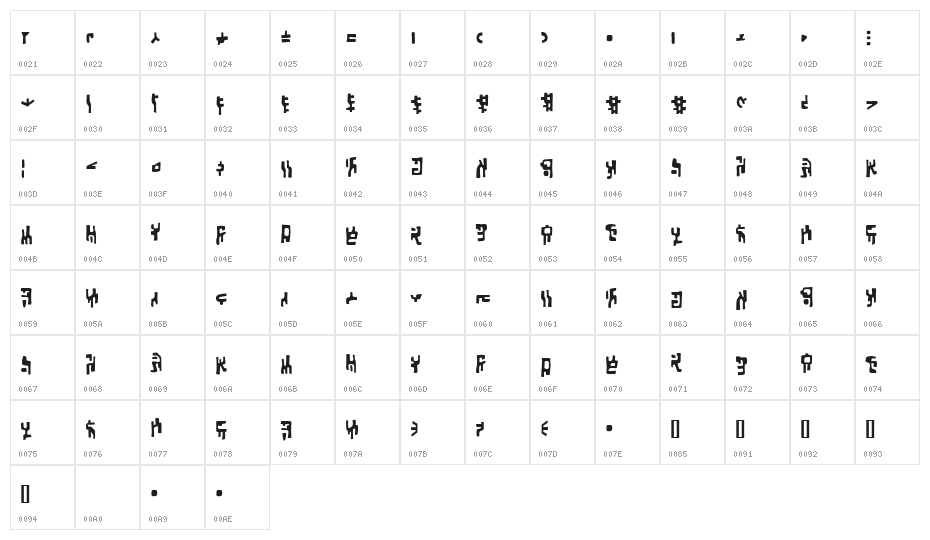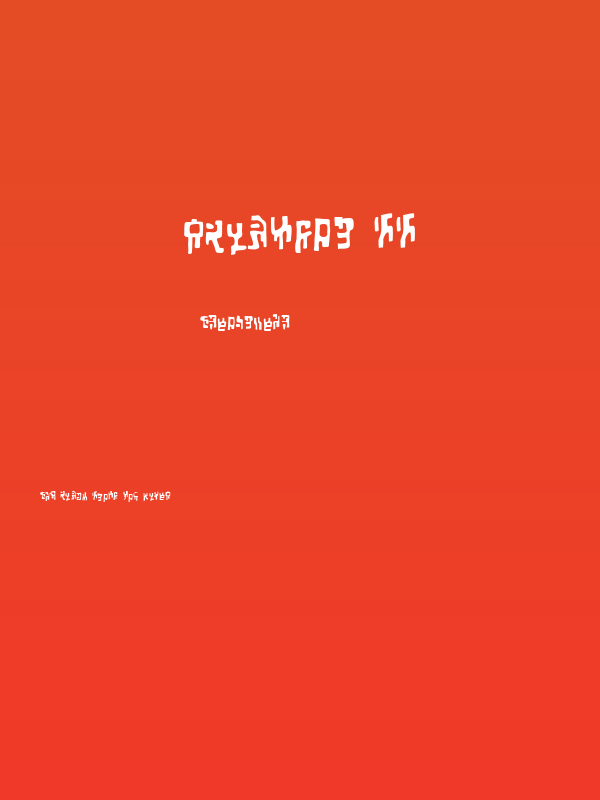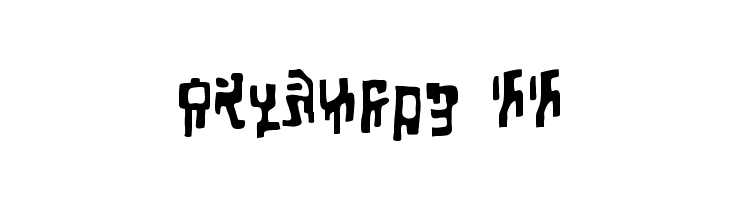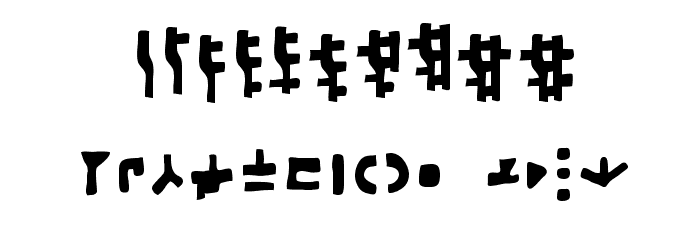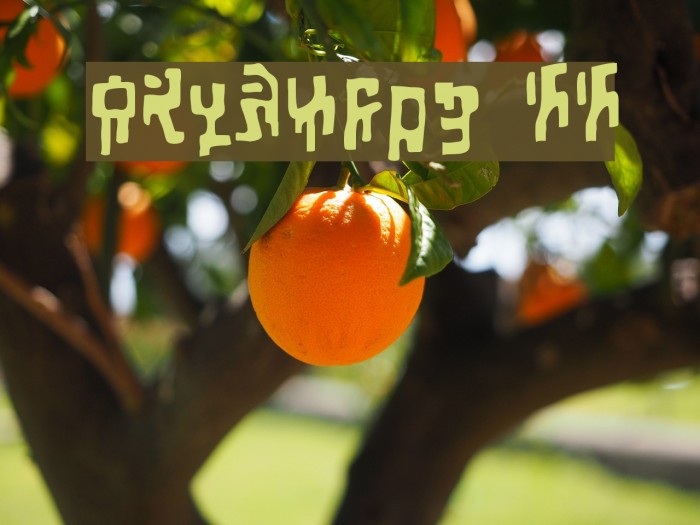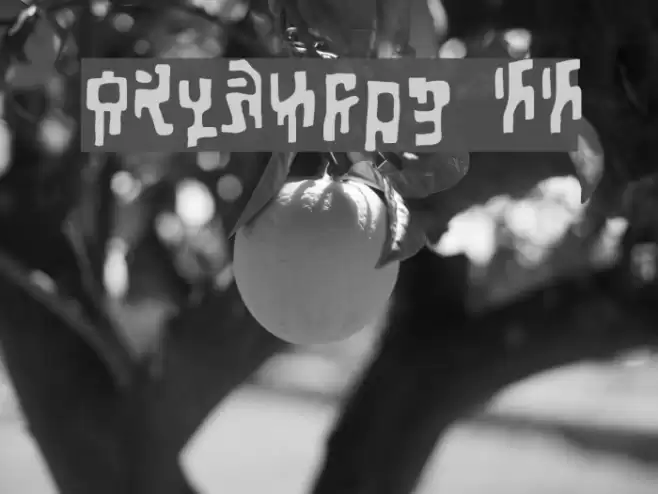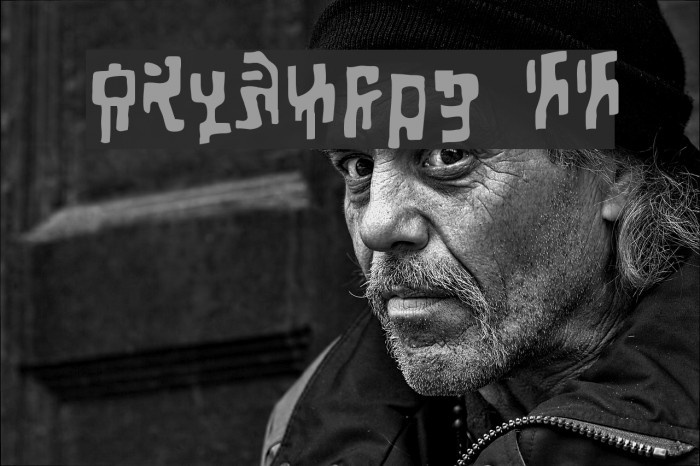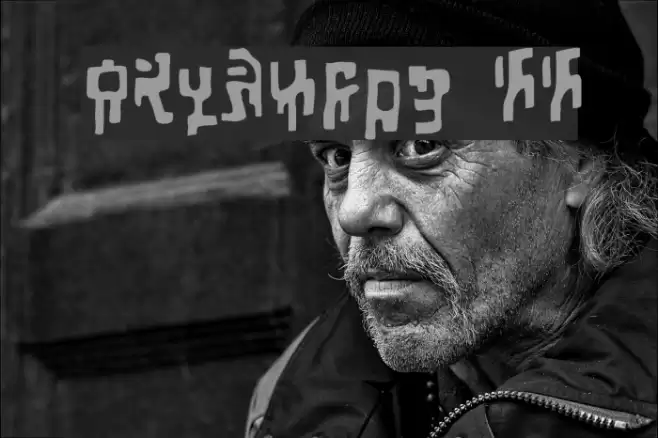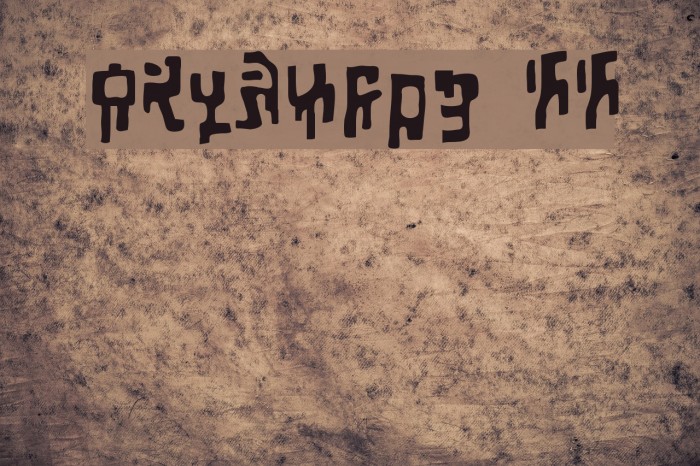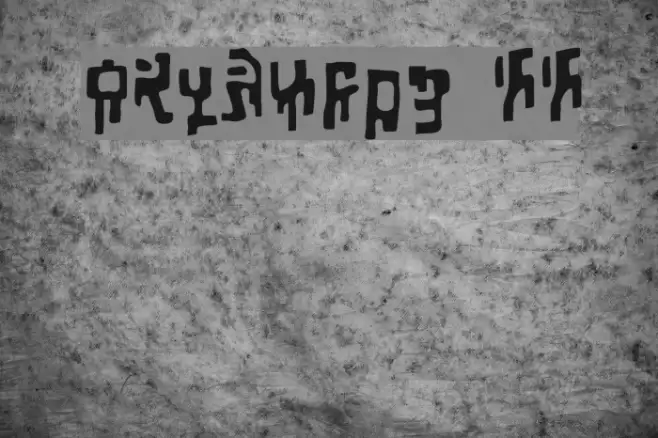
Squiznor BB Font
Squiznor BB Description
This font features a highly stylized and abstract design, reminiscent of ancient or futuristic scripts. The characters are bold and blocky, with a unique geometric structure that gives them a distinct appearance. Each letterform is crafted with sharp angles and thick strokes, creating a sense of weight and presence. The font's design is consistent across both uppercase and lowercase letters, as well as numbers and special characters, maintaining its unique aesthetic throughout. Its unconventional style makes it stand out, offering a visually striking option for creative projects.
| Overall Style | Futuristic |
| Use Case | Logos, Posters, Titles |
| Proposed Projects | Ideal for sci-fi themed designs, video game graphics, or branding for tech companies seeking a futuristic look. |